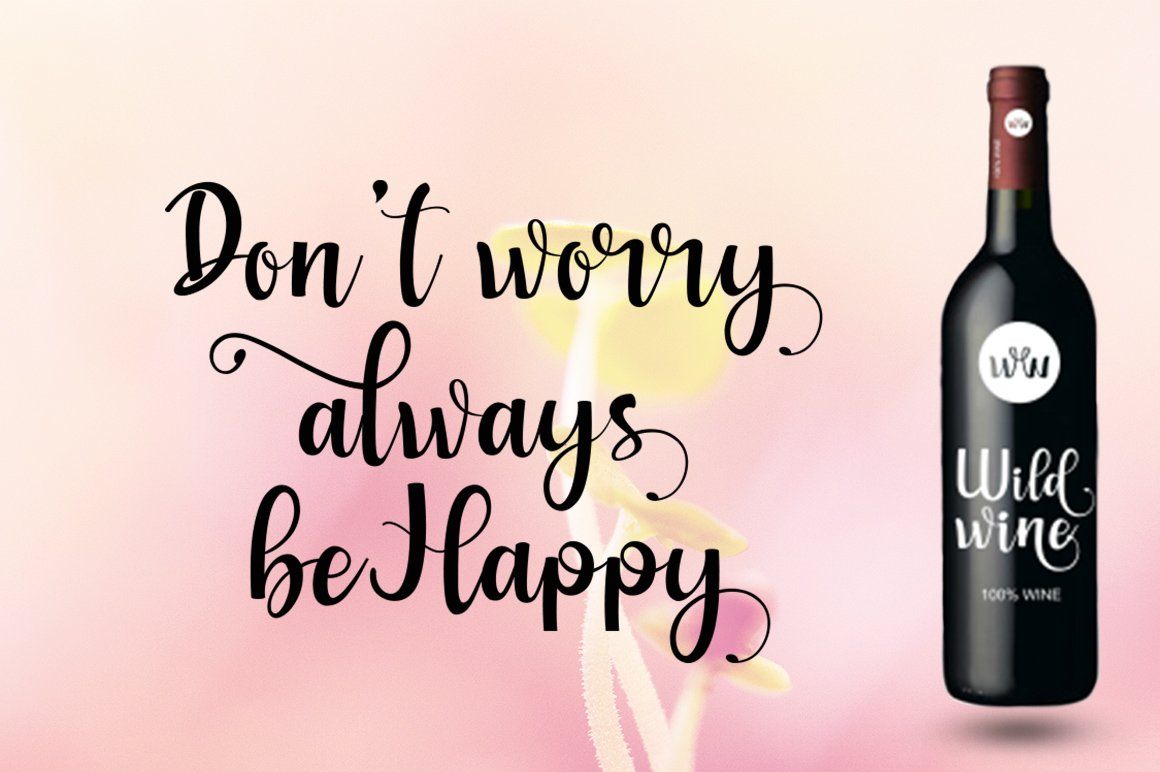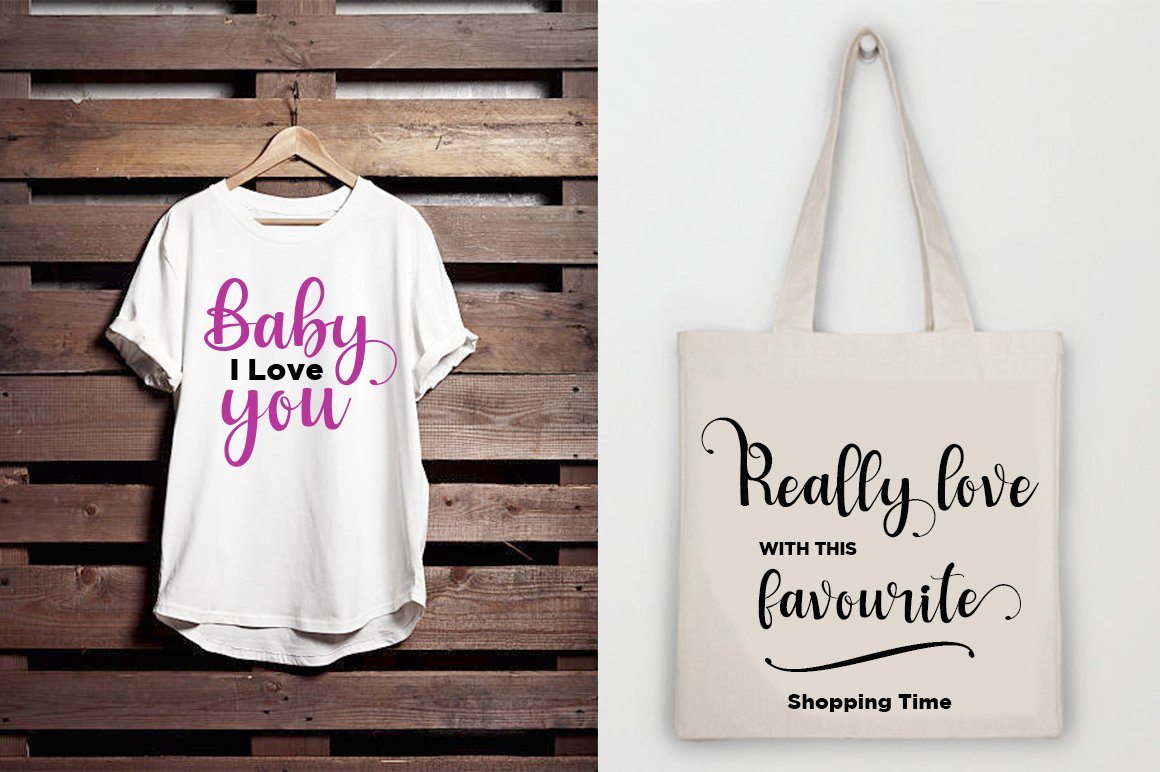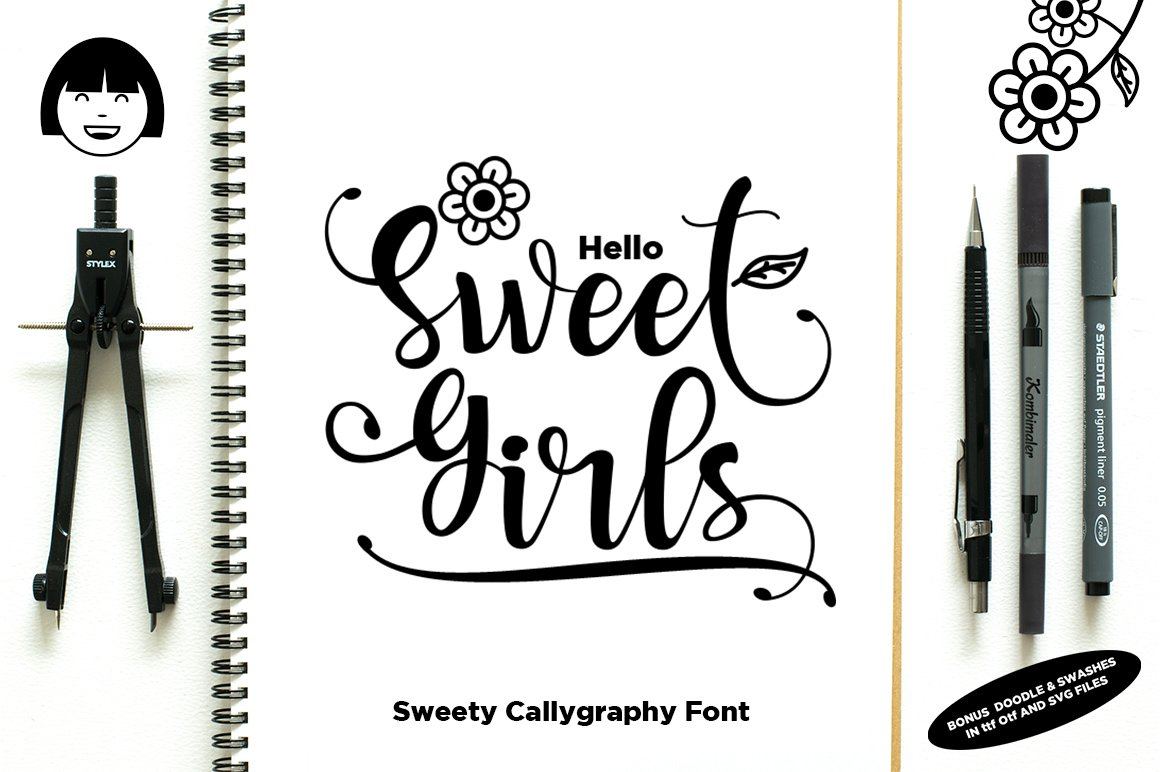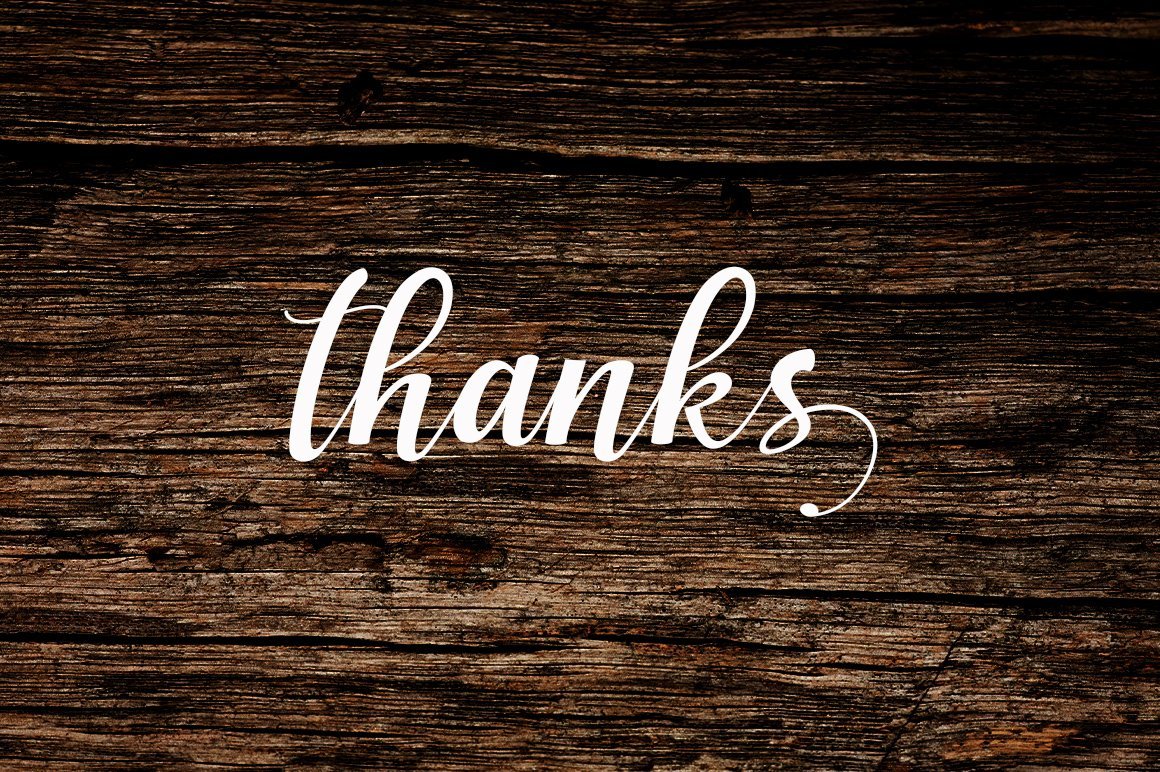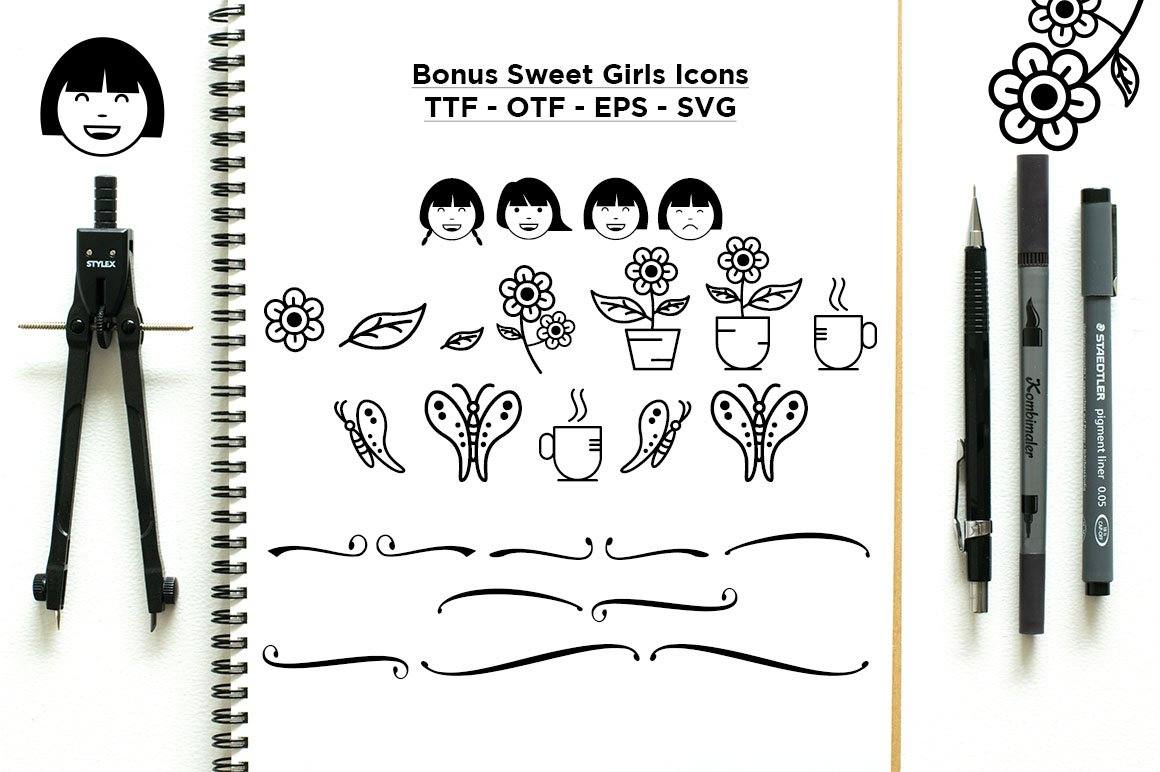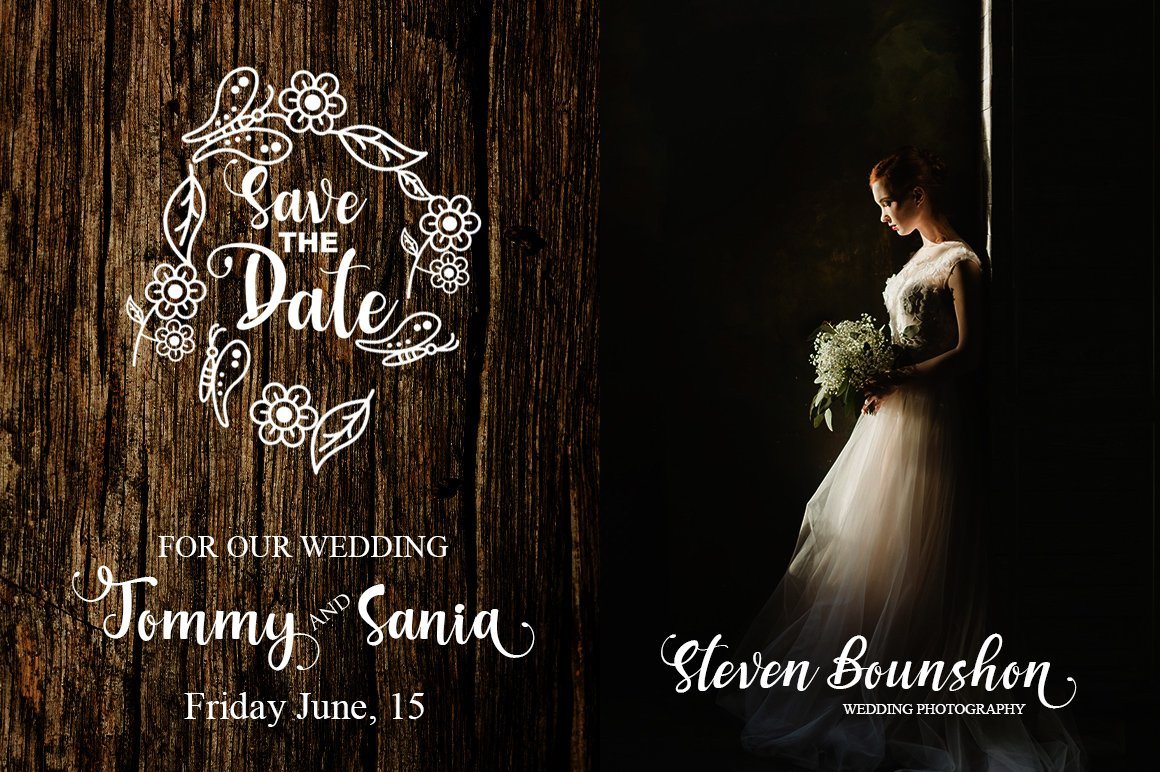
I will introduce my new font with the name “ Sweet Girls ” Hello all, “ Sweet Girls ” is the form of letters that many variation and look very beautiful. available over than 50 glyphs for alternative letters that will make this font look so cute, funny, beautiful and fascinating. What’s Included : Sweet Girls TTF OTF and WOFF Sweet Girls Slant TTF OTF and WOFF Sweet Girls Icons TTF OTF and WOFF Thanks so much for checking out my shop! Hope You enjoy it so much All the best, Haksen